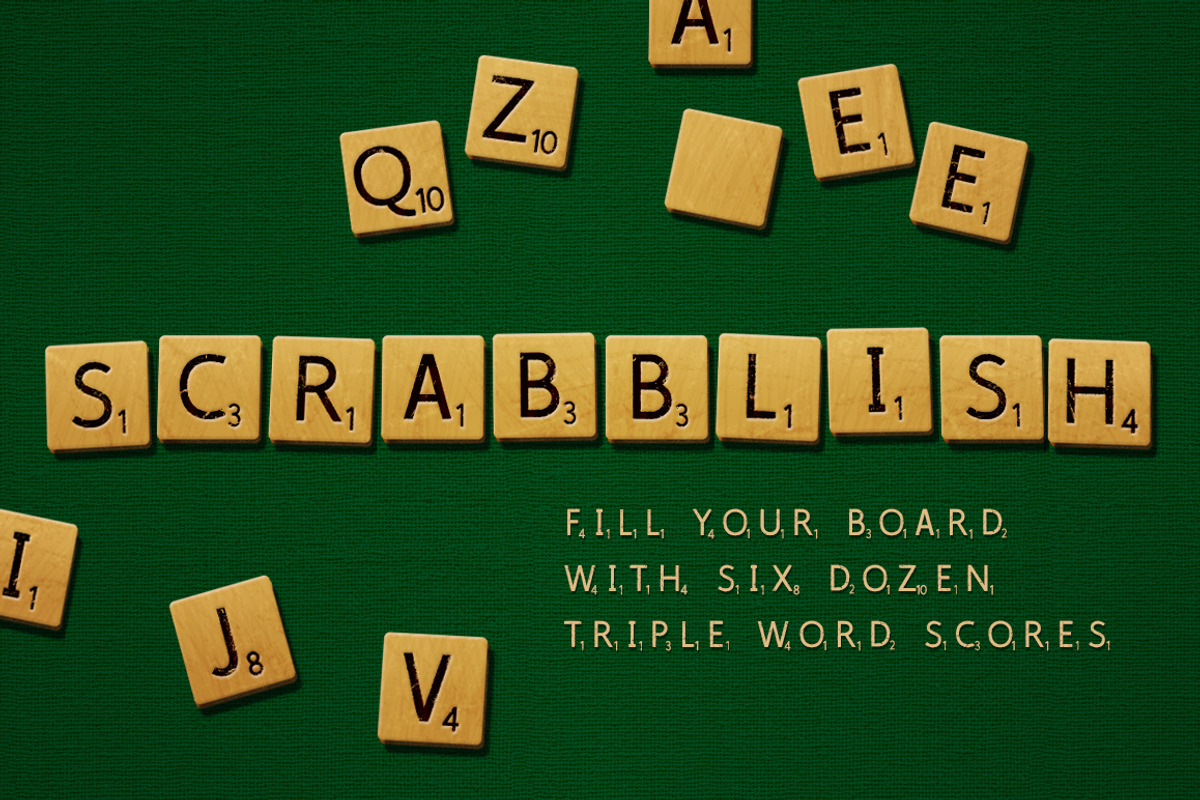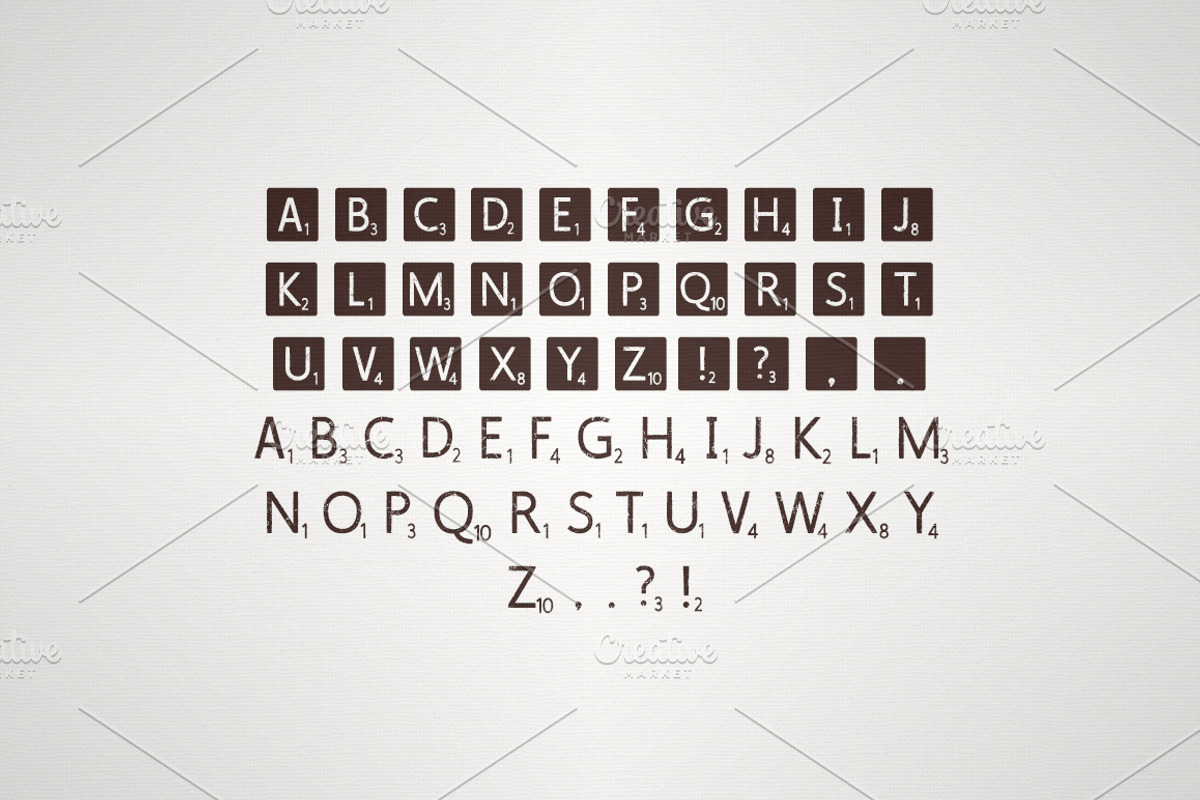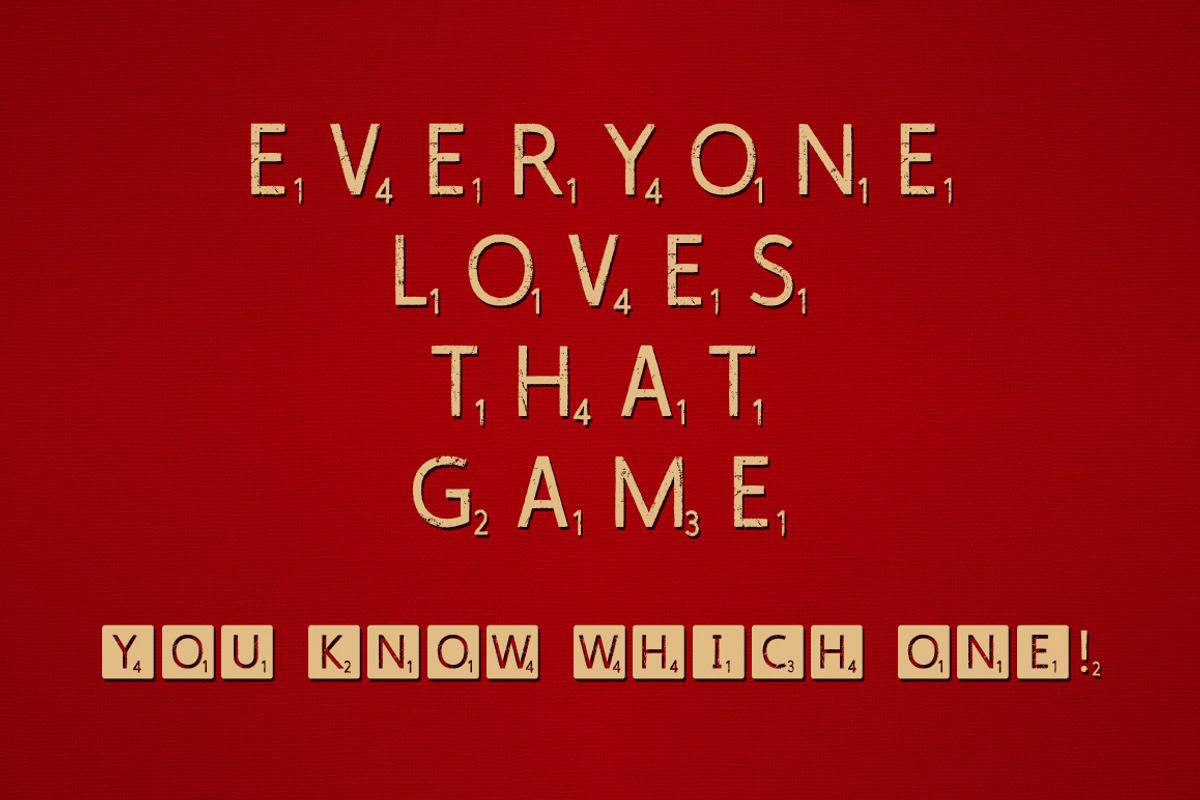
Scrabblish Game Letters Font
Similar to the well-known educational board game letters, this font has normal and reverse tiles as upper and lower case, with added Exclamation mark, question mark, comma and full stop. The letters alone are slightly textured, while the reverse background blocks are not, so they make for very easy styling effects. 2 files in the zip folder: .otf and .woff